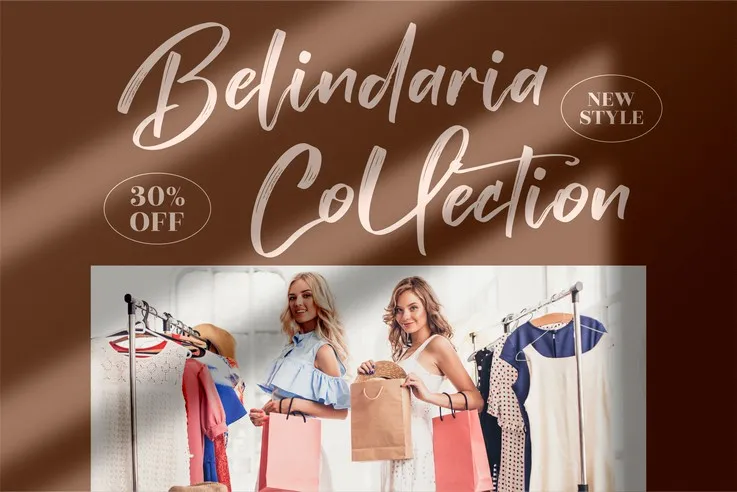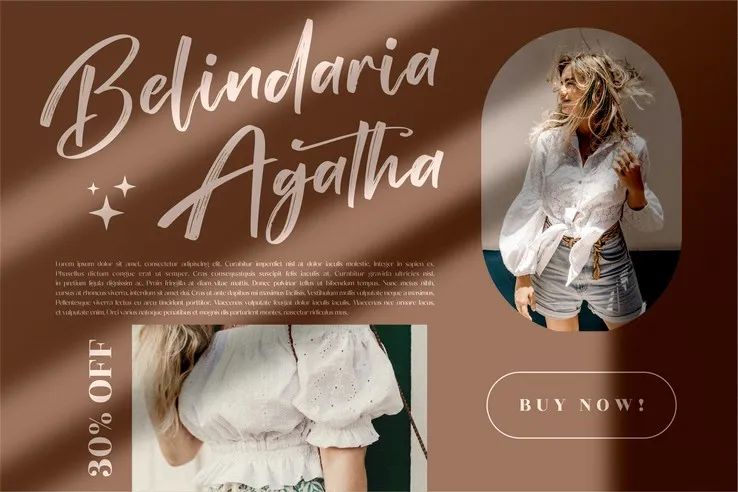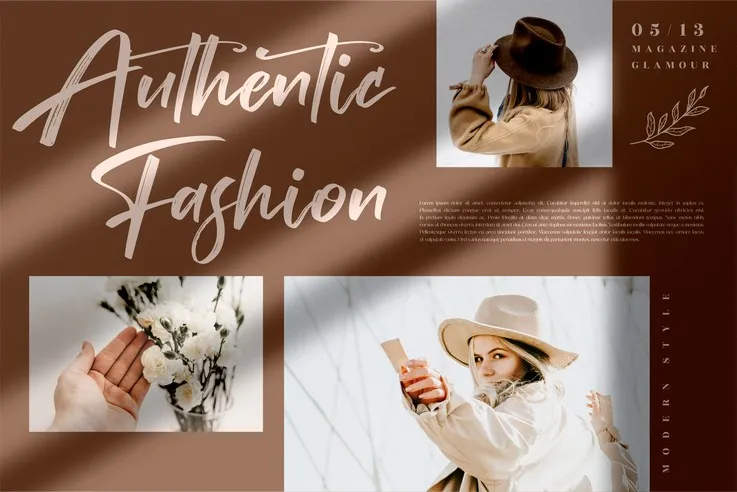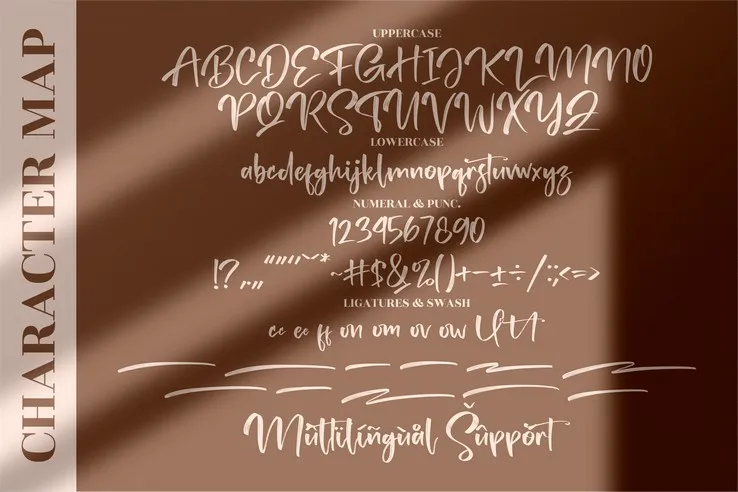
Tedy Brush Font
Tedy Brush Font is a charming and stylish brush font that brings a touch of sophistication to any project. With its flowing lines and hand-drawn appeal, this font is perfect for those who want to add elegance to their branding, invitations, or social media graphics. The smooth strokes and artistic flair make it stand out among other brush fonts.
This script font was carefully designed to combine beauty and readability. Whether you’re working on a wedding invitation, a logo, or a product label, Tedy Brush adds a refreshing and graceful vibe. Its soft curves and balanced forms give your design a personal, handcrafted feel while maintaining clarity.
Tedy Brush Font is ideal for creative professionals, designers, and anyone who appreciates tasteful typography. It’s a great choice for both digital and print projects where elegance matters. Let your designs speak with style using the delicate charm of Tedy Brush.